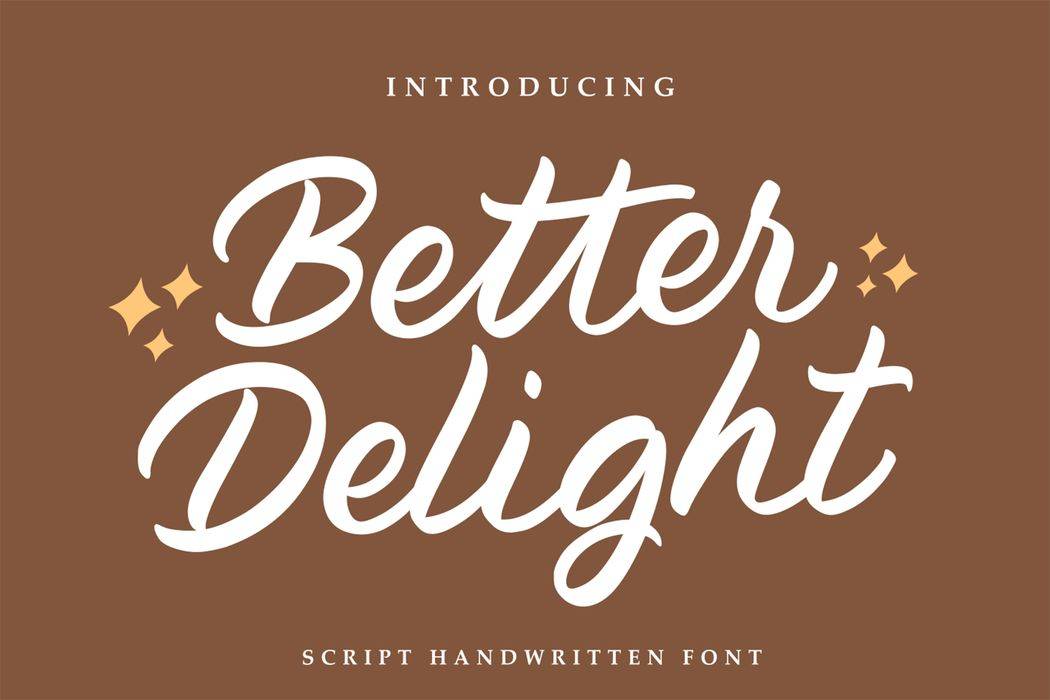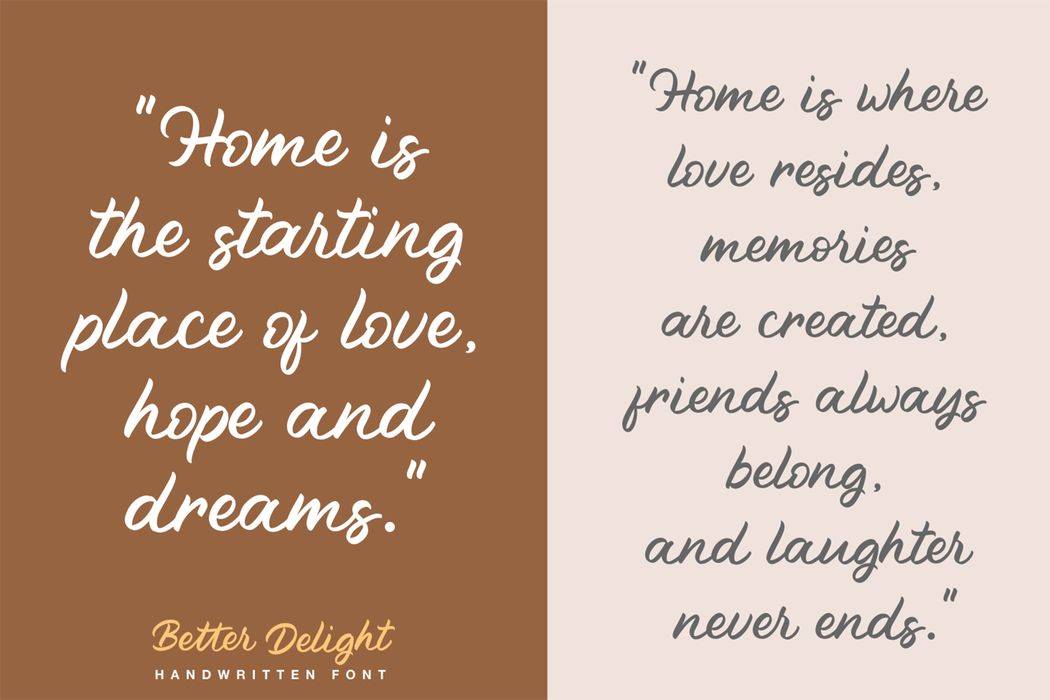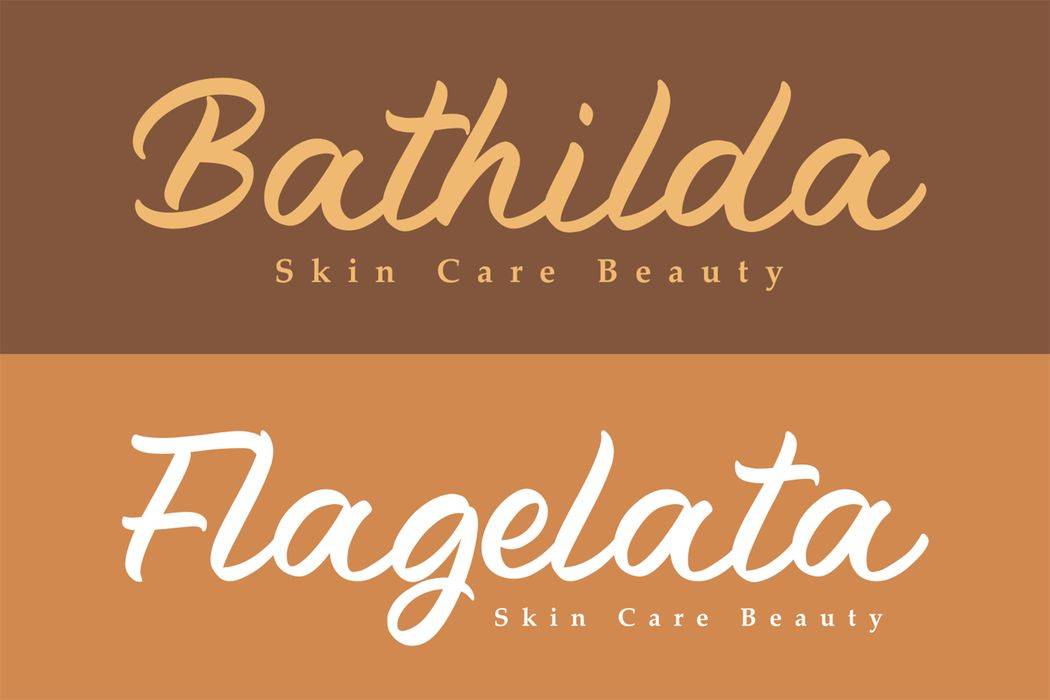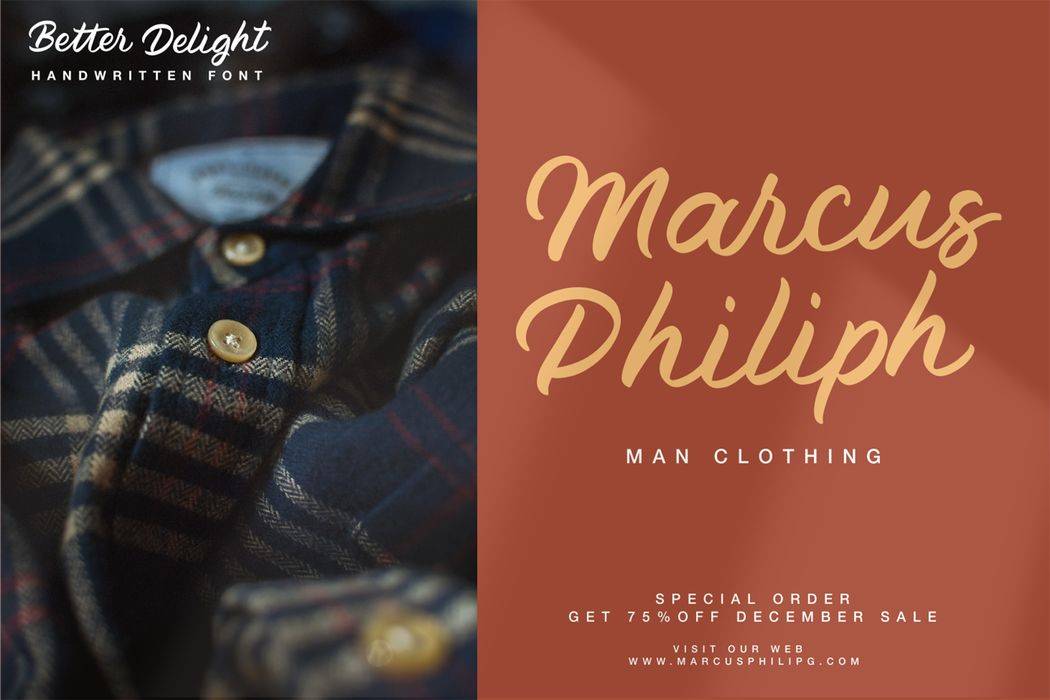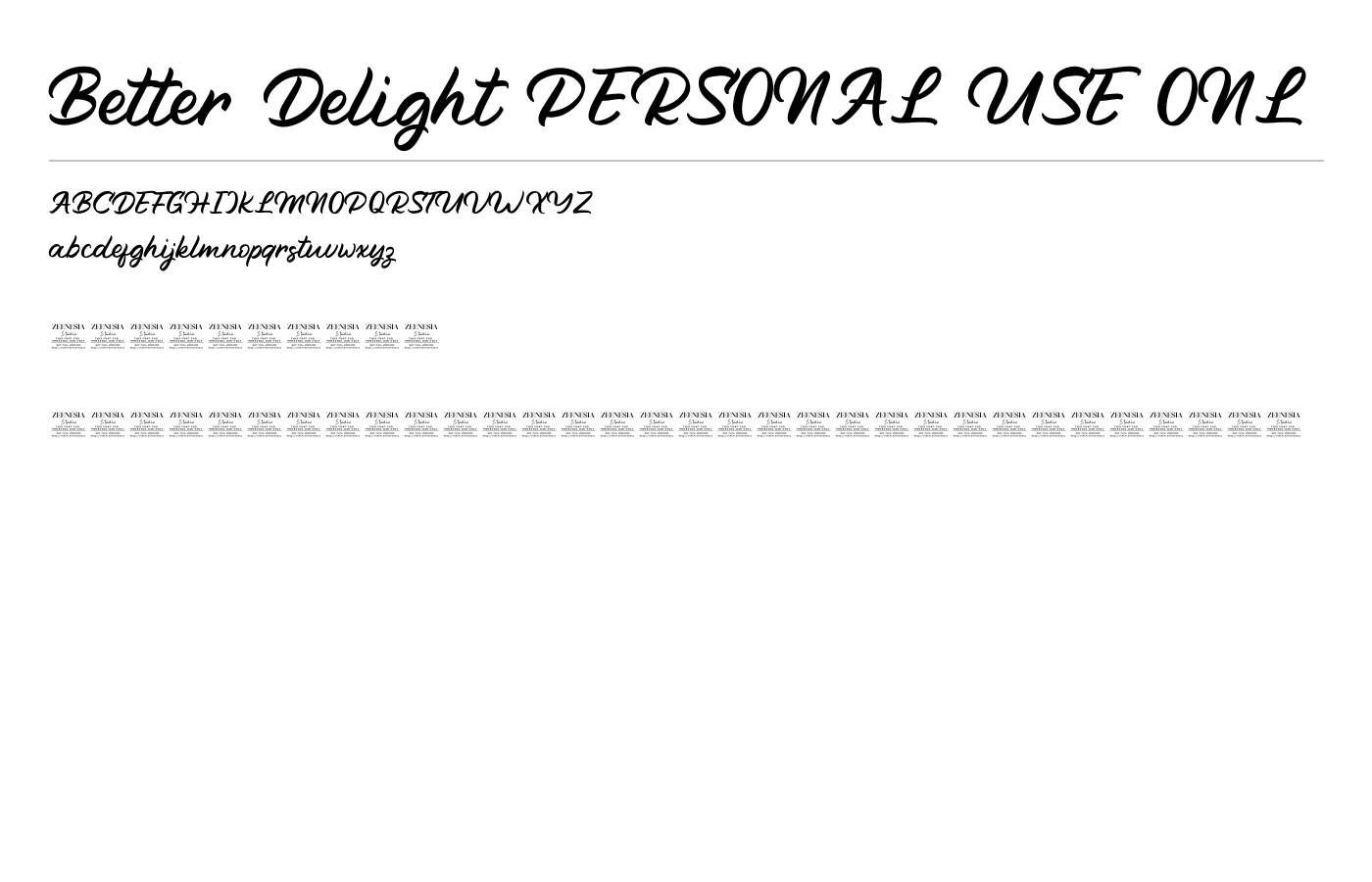
Better Delight is a playful and elegant script font with smooth, flowing strokes that give it a casual yet refined feel. Its medium weight and slightly condensed letterforms make it perfect for invitations, branding, and headlines where a personal, handwritten touch is desired. This font conveys warmth and friendliness, making it ideal for lifestyle and creative projects seeking a charming and approachable style.
Better Delight Font
About Better Delight Font